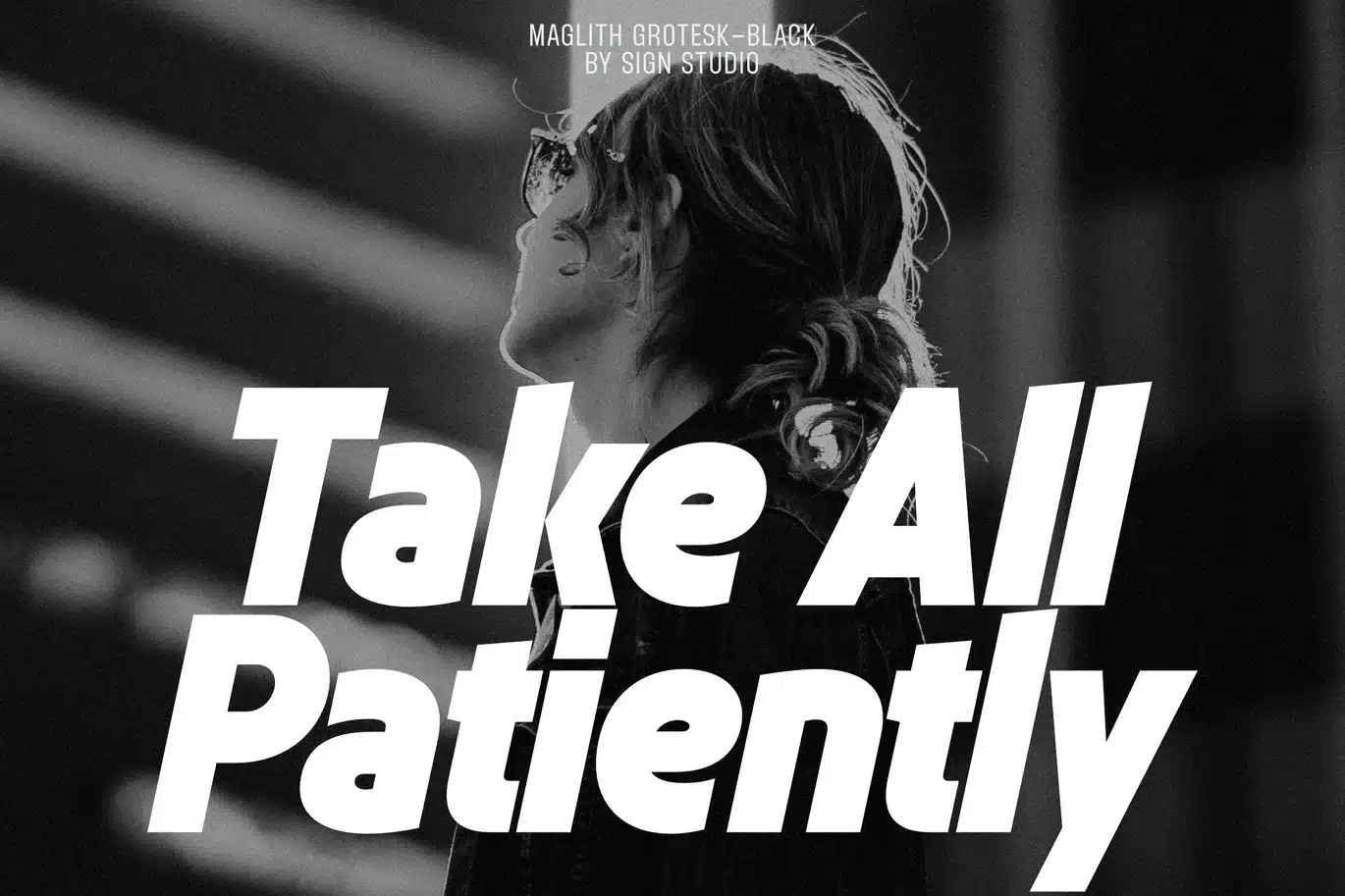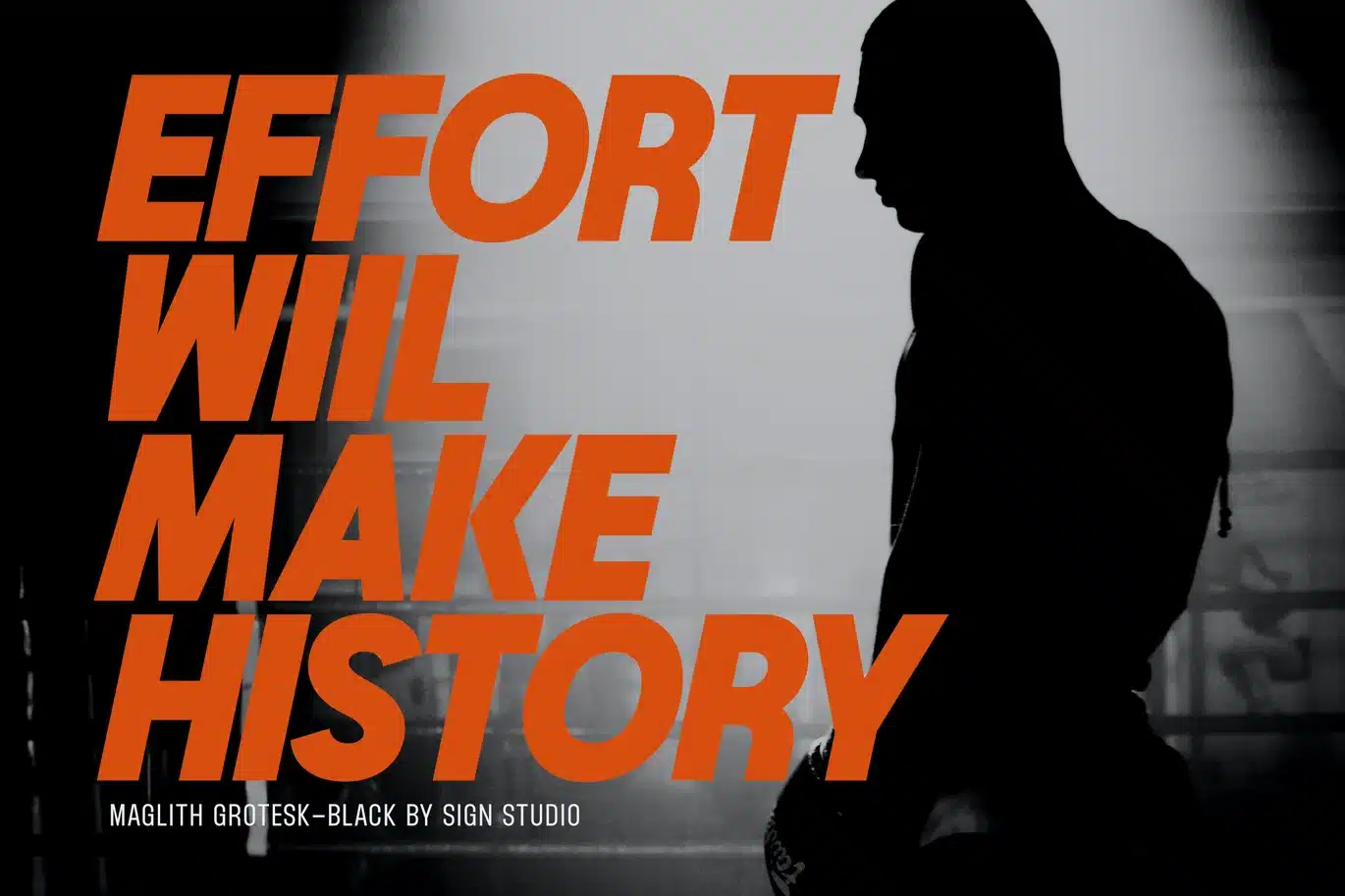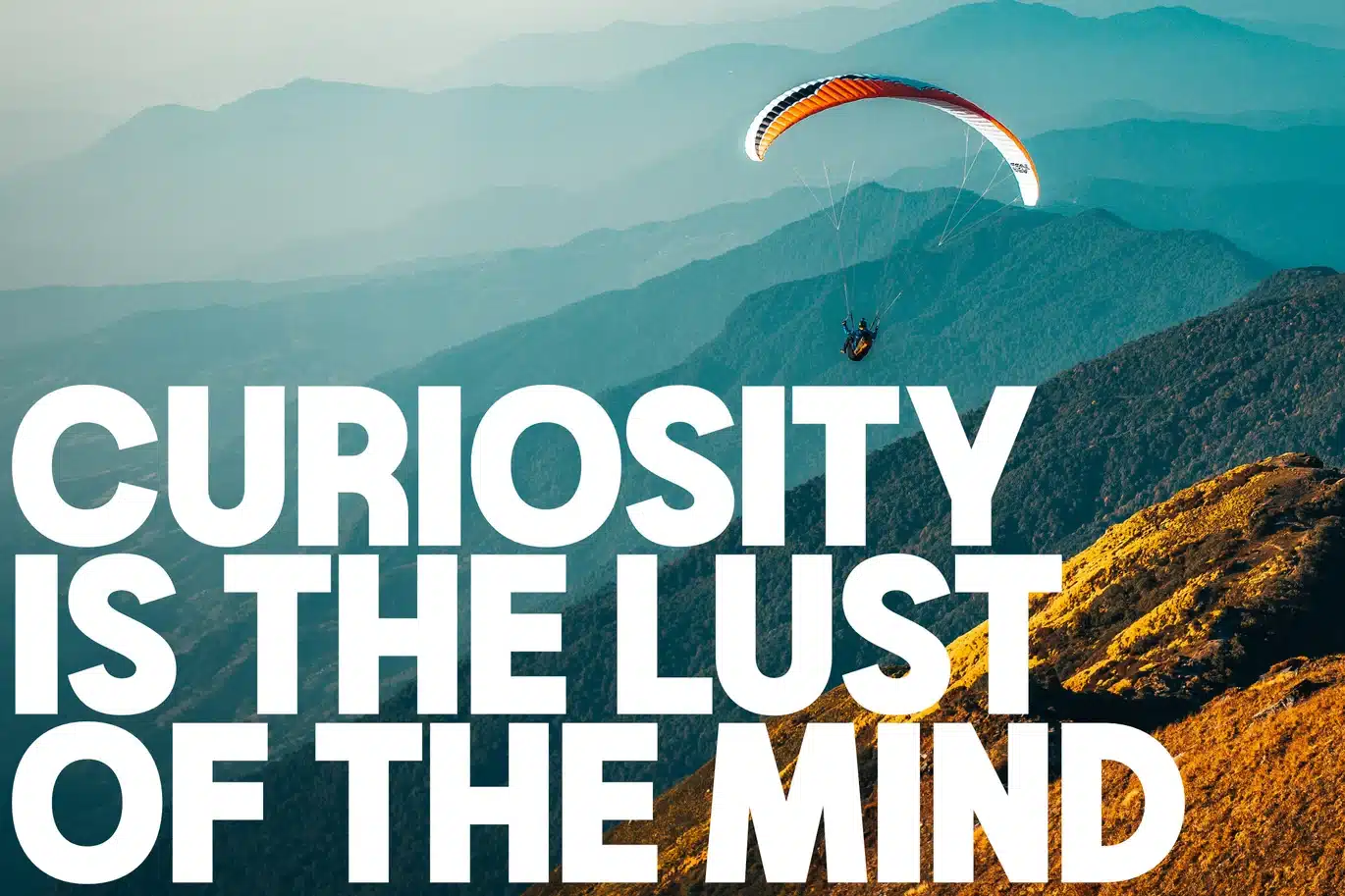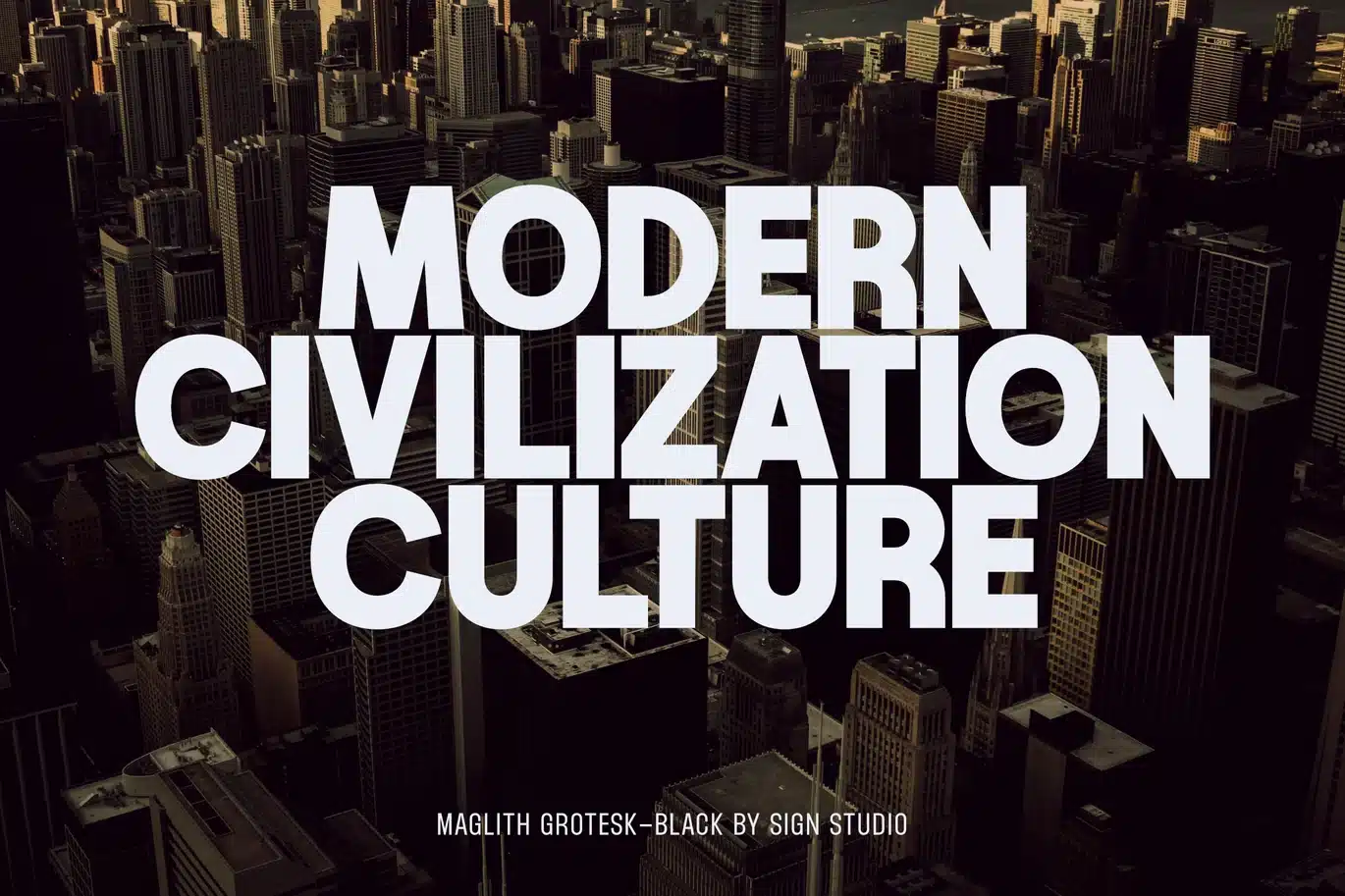
Maglith Grotesk – Black & Oblique Font
Maglith Grotesk – Black & Oblique is a powerful modern grotesk designed for high-impact visual communication. Built with strong geometric structures and compact proportions, this typeface delivers a bold and confident presence across any design surface.
This package focuses on the Black weight and its Oblique counterpart, offering maximum visual strength with a dynamic 12-degree slant—perfect for designers who need striking headlines, expressive branding, and attention-grabbing layouts.
With its minimal contrast, tight spacing, and clean contemporary form, Maglith Grotesk excels in display use while maintaining excellent readability. The design balances precision and personality, making it suitable for both aggressive and refined visual directions.
Supporting 499 glyphs and multilingual coverage including Cyrillic, this typeface ensures flexibility for global design needs, from editorial headlines to modern identity systems.
- Black & Oblique styles (12° slant)
- Strong geometric grotesk structure
- Tight spacing & compact width
- High-impact display performance
- Multilingual support (90+ languages, Cyrillic included)